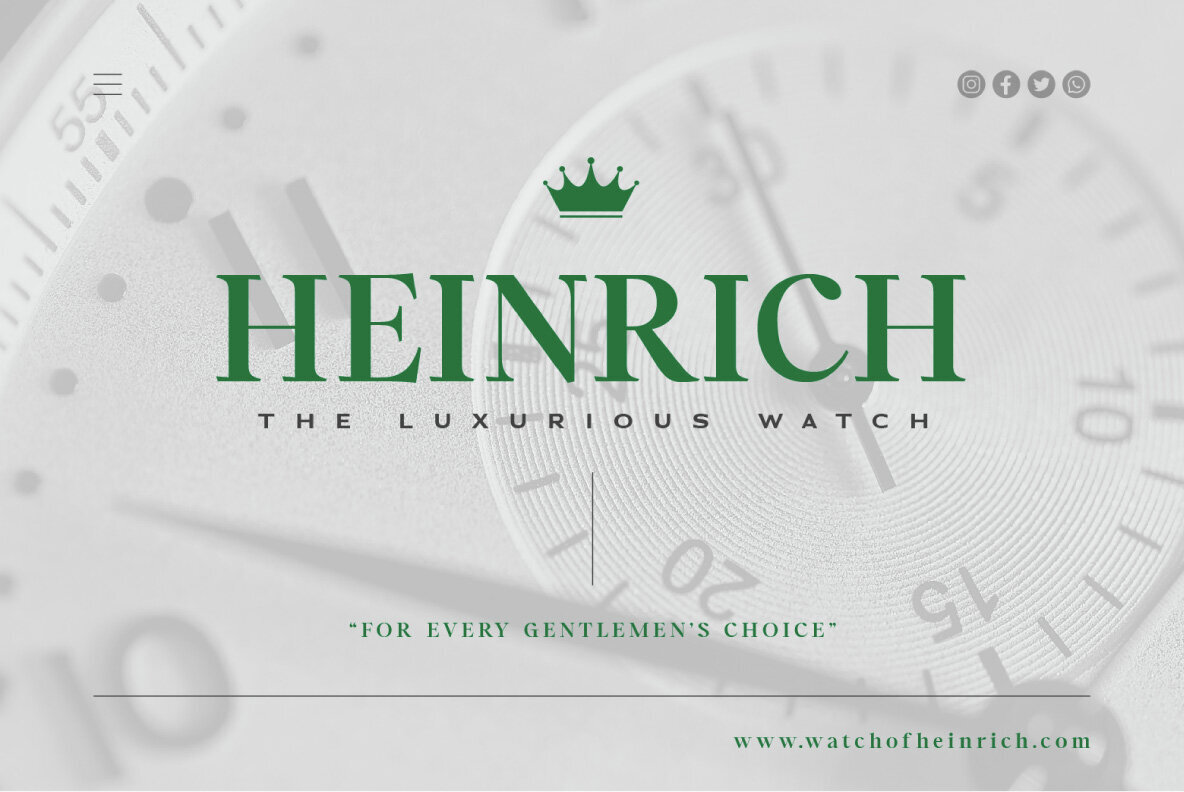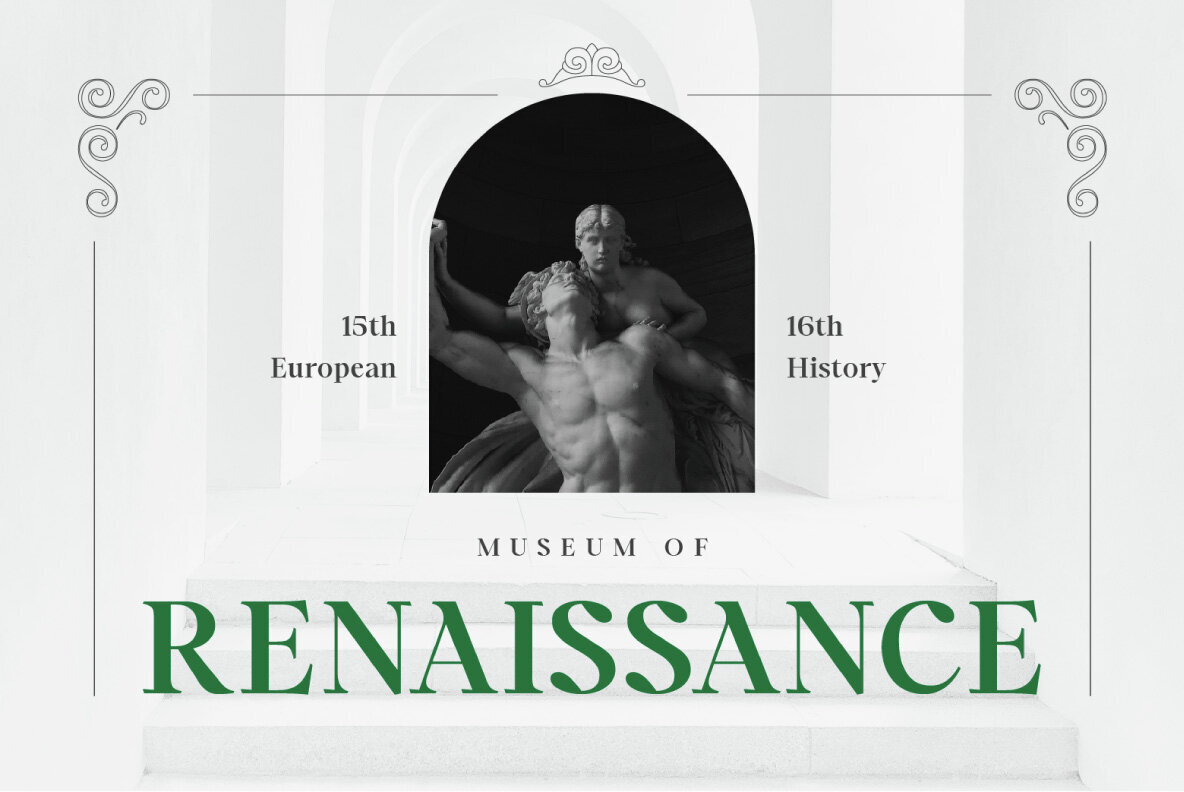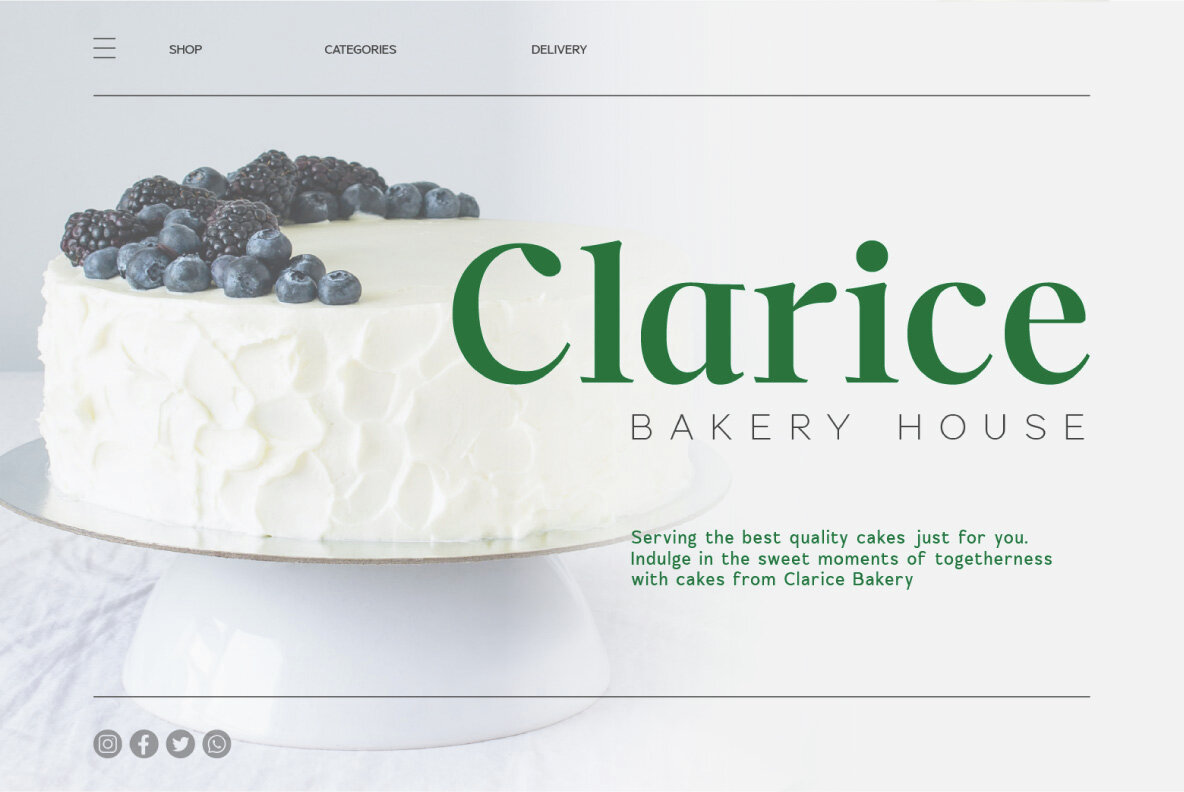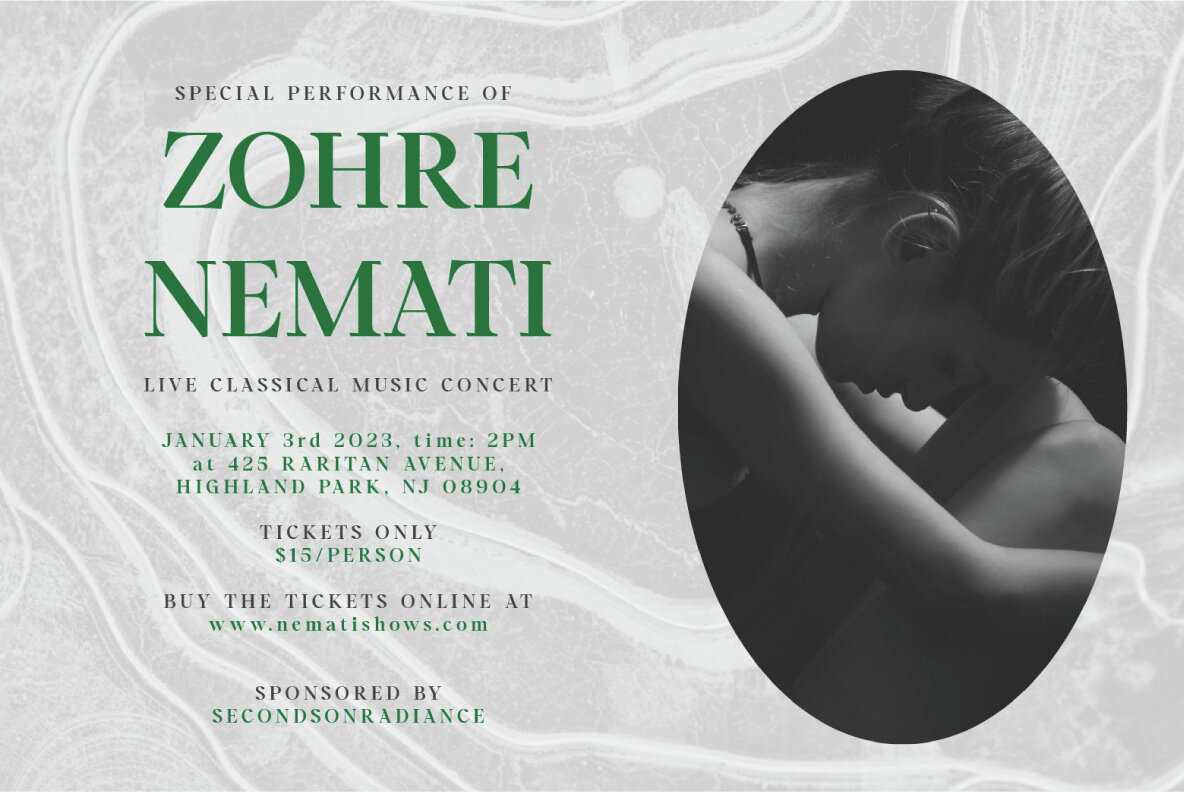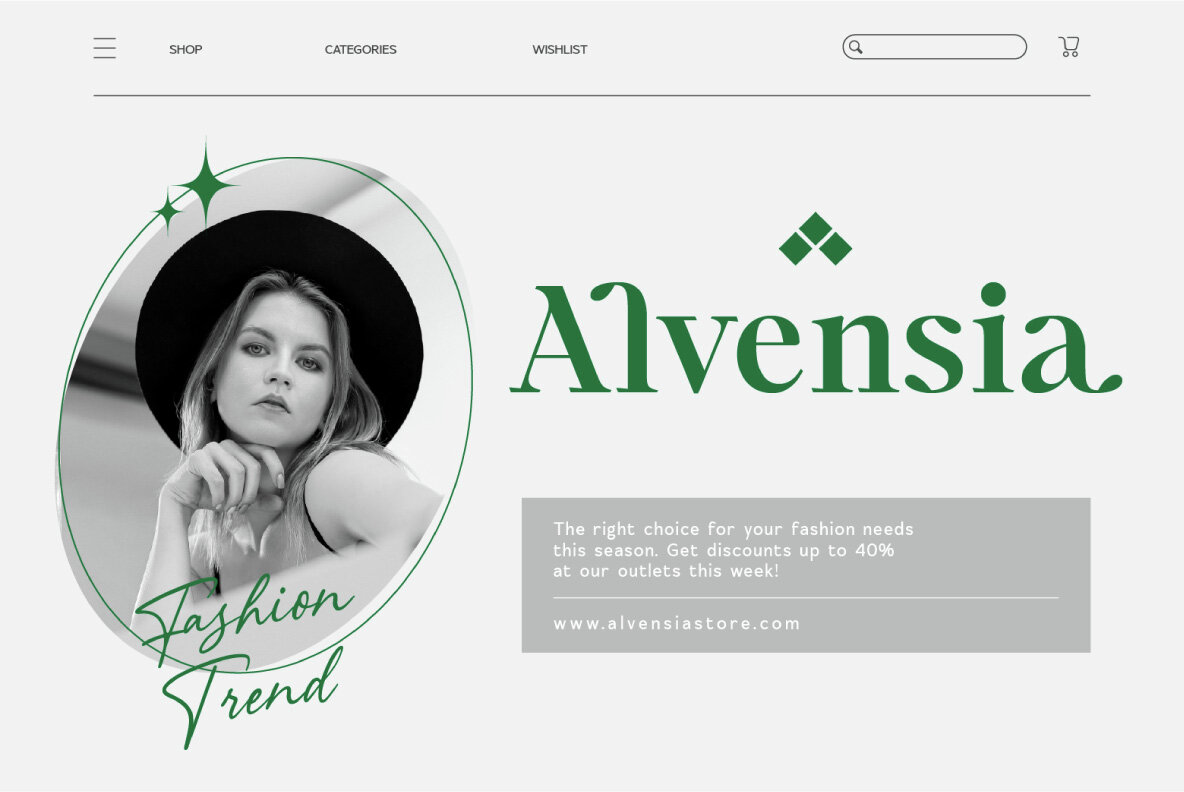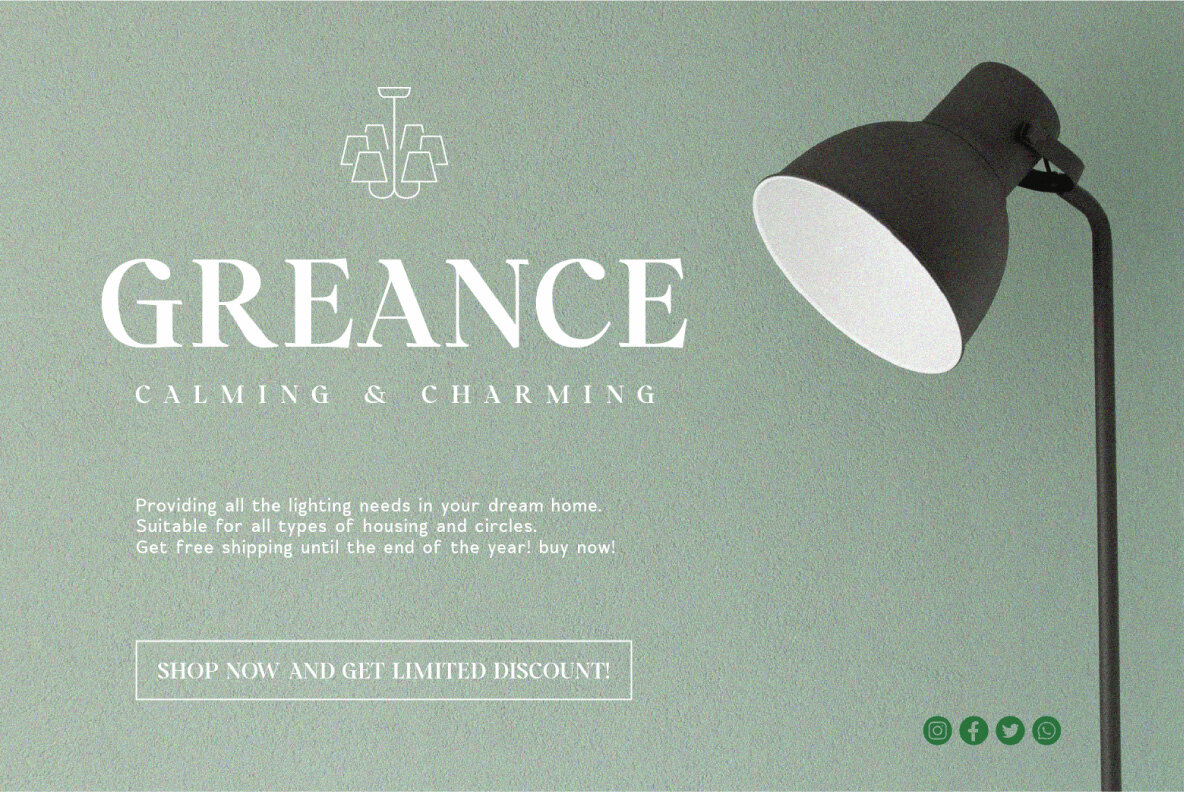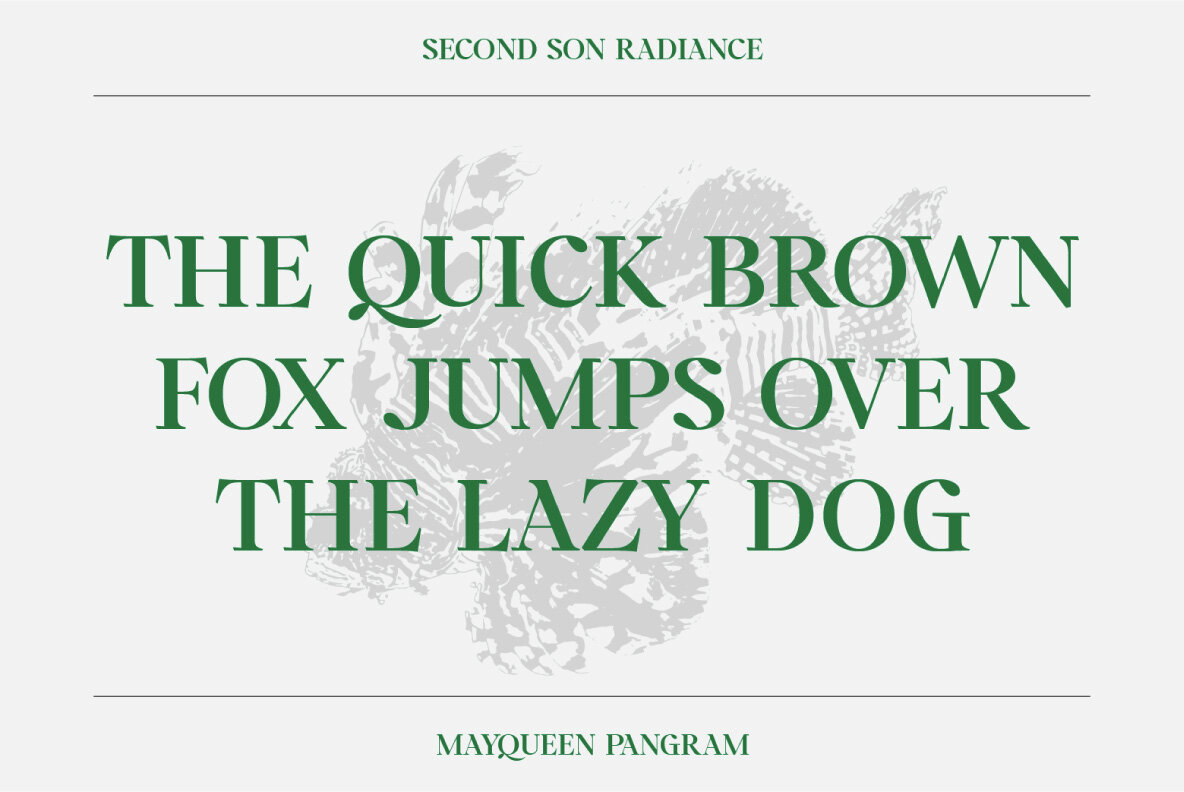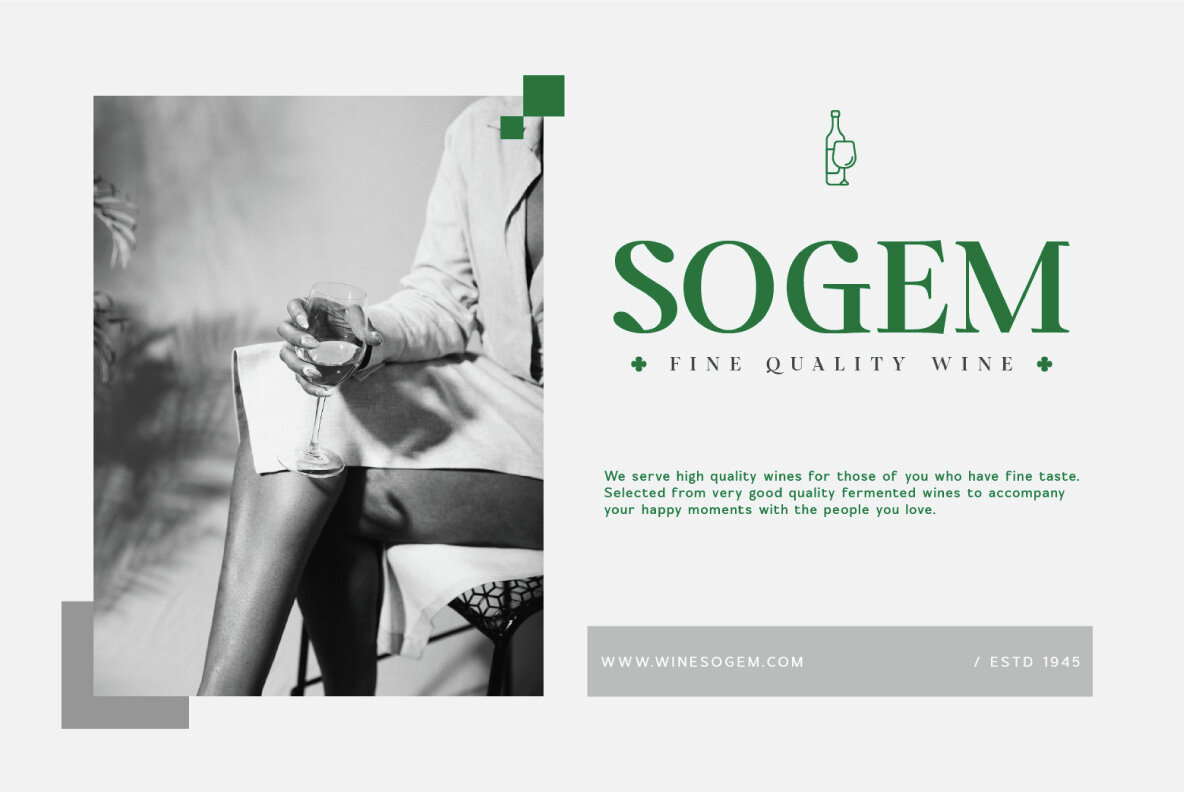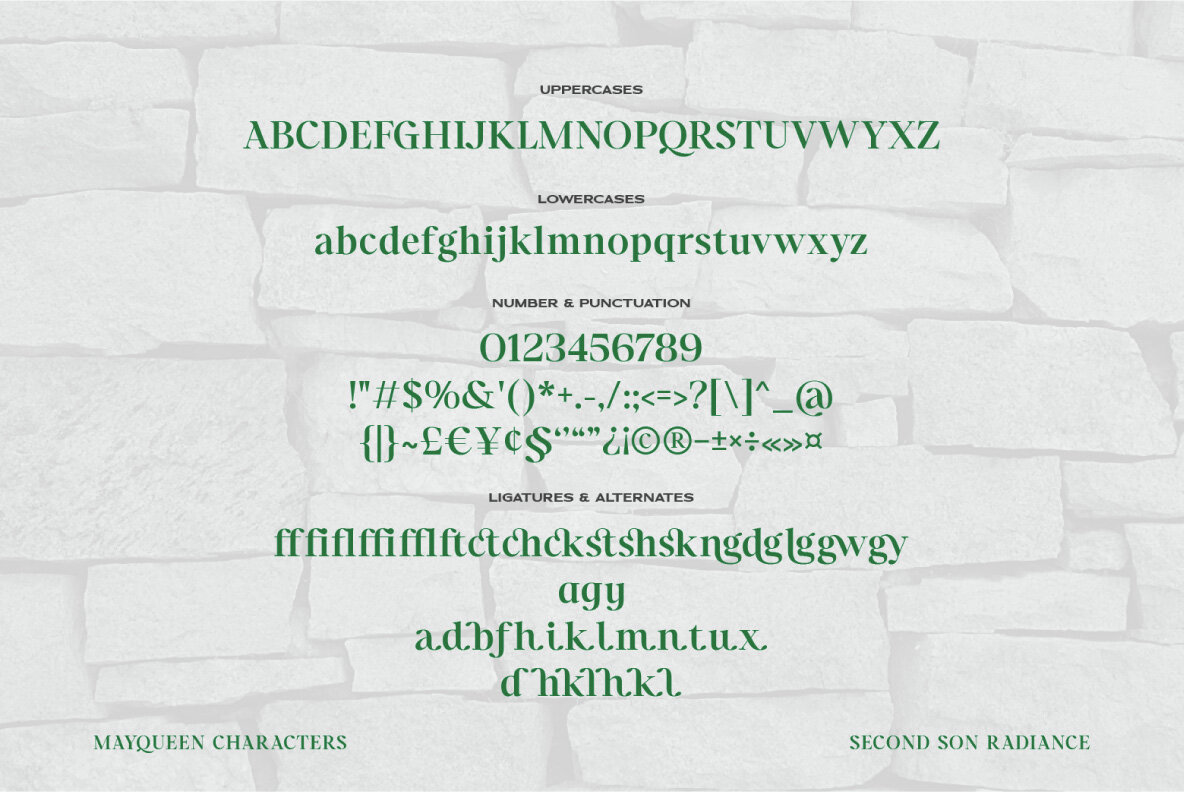
SS Mayqueen Font
Mayqueen Regular
SS Mayqueen is a sophisticated vintage serif typeface, exuding elegance and charm. It is well-suited for luxury logos, branding, and a myriad of creative projects like high-end editorial designs, women's magazines, cosmetics, and art gallery branding. Ideal for boutique and stationery projects, it seamlessly fits into blog designs, modern advertising, elegant invitations, art quotes, home decor, and book titles. Its versatility makes it suitable for special events and more.
This typeface includes a comprehensive set of features: basic Latin A-Z and a-z, numerical characters, punctuation, ligatures, and alternates. The inclusion of OpenType features and PUA encoding ensures ease of use and enhanced creativity. With multilingual support, Mayqueen caters to a wide audience, making it a perfect choice for designers seeking a timeless and versatile font.